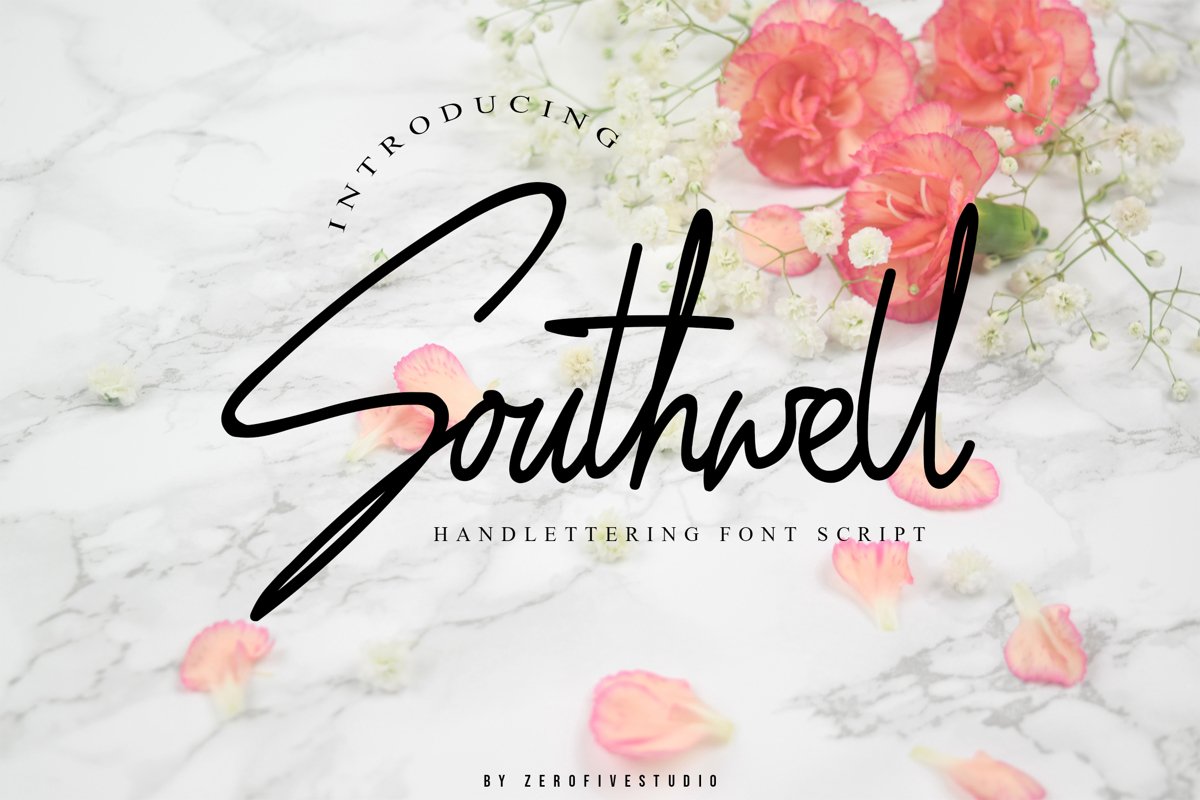
Southwell Script
Southwell
Southwell Script is a elegant and a smooth casual monoline signature stylish script.
Southwell Script is perfect for branding projects, cloting, posters, magazines, logos, business cards, wedding designs, social media posts, advertisements, product packaging, product design, labels, photography, watermarks, invitations, stationery, and any project who need handwritten tastes.